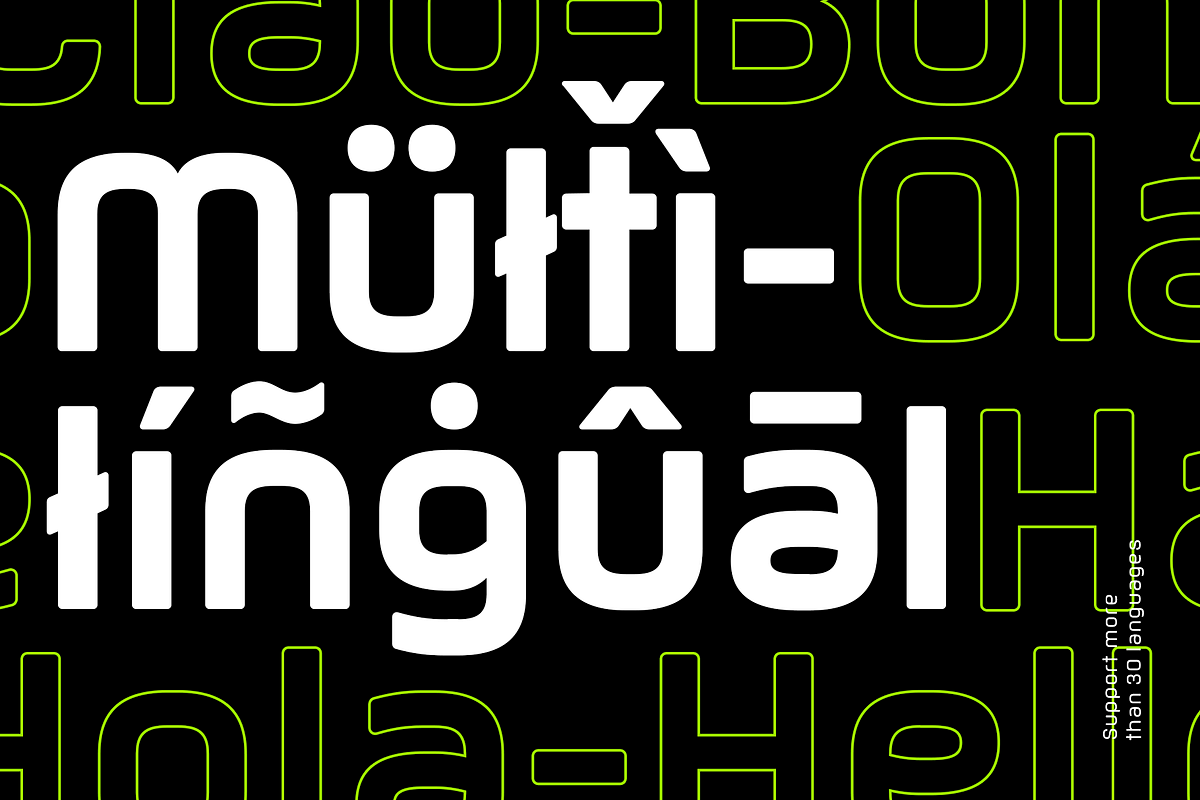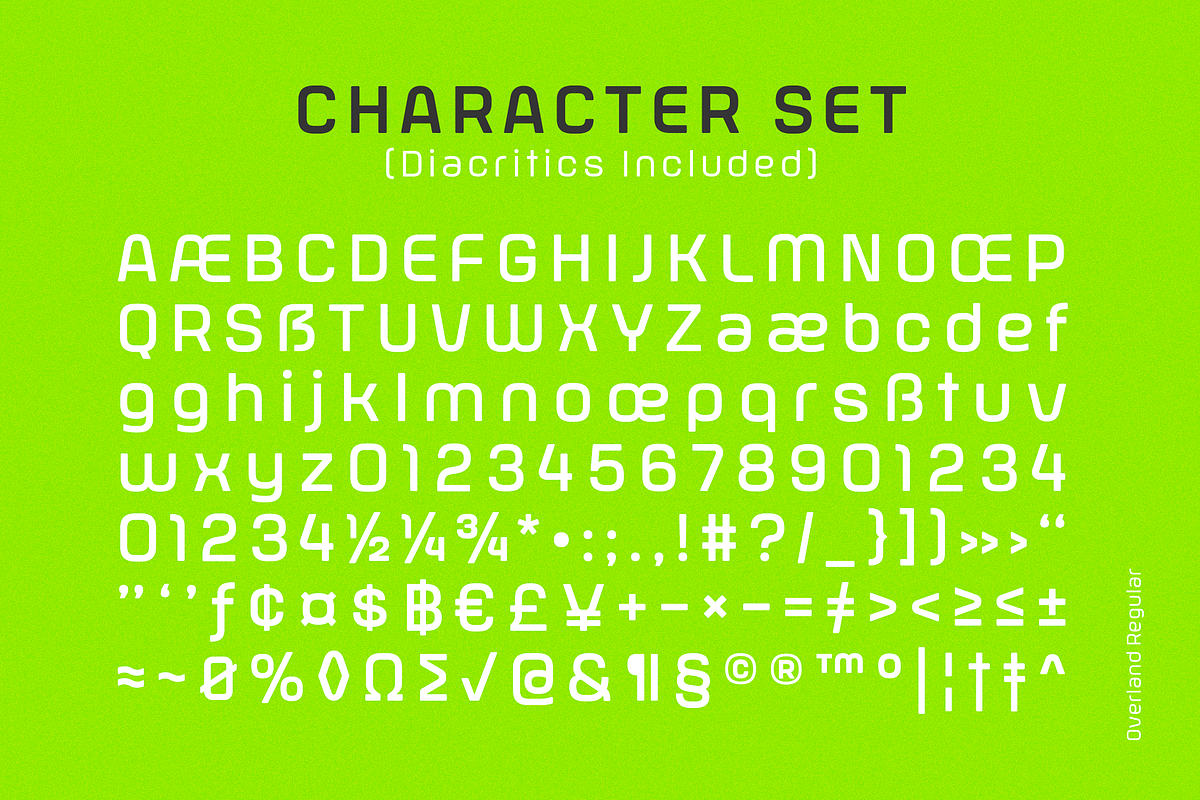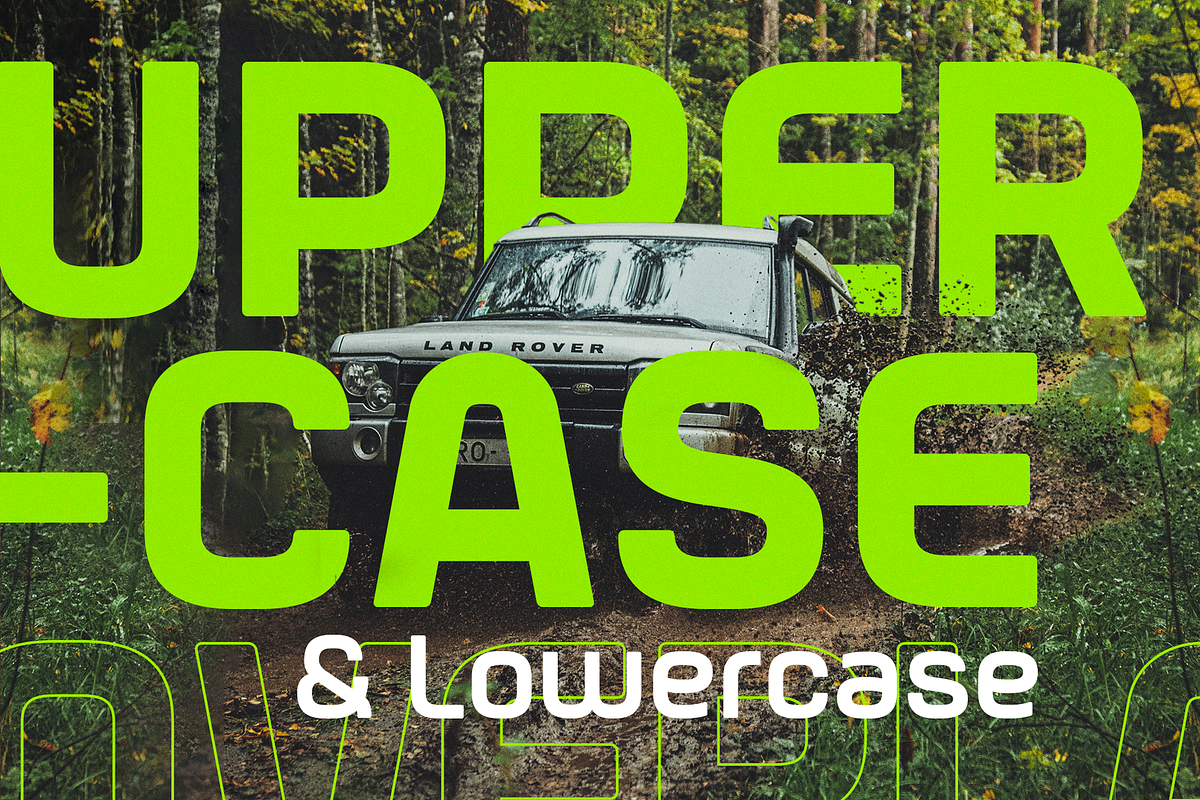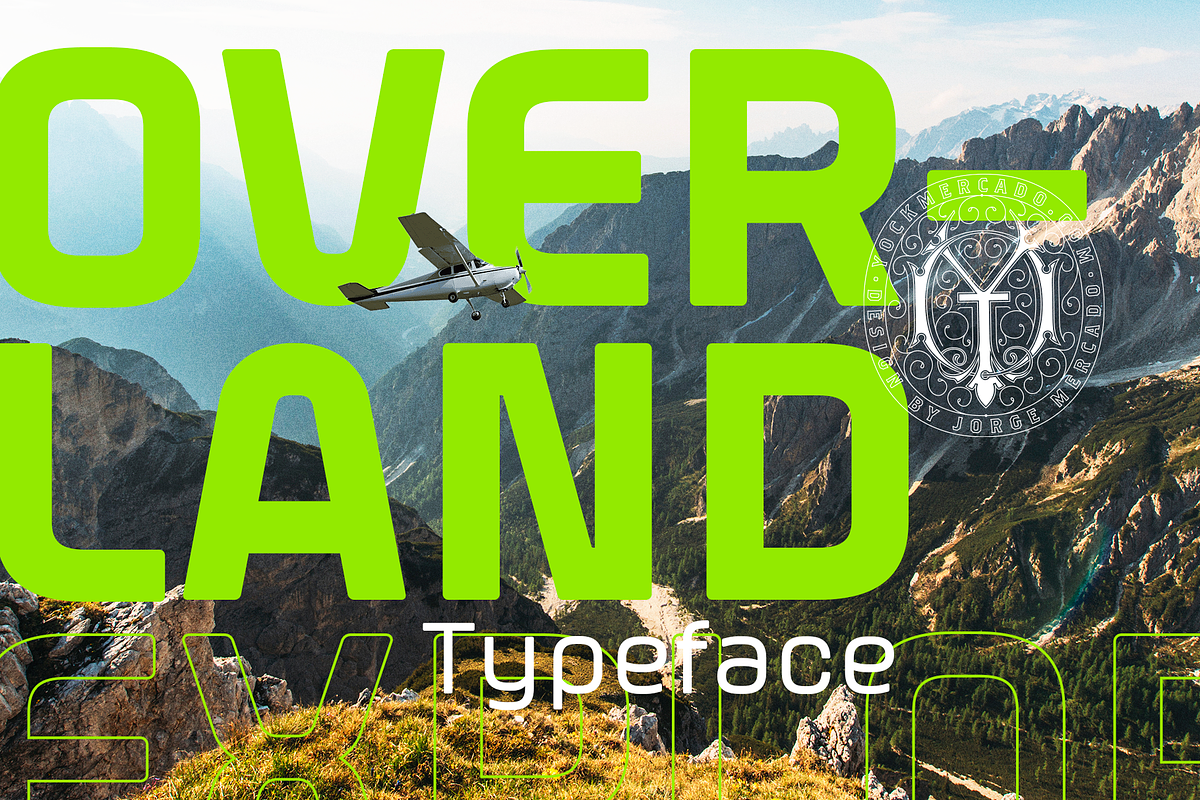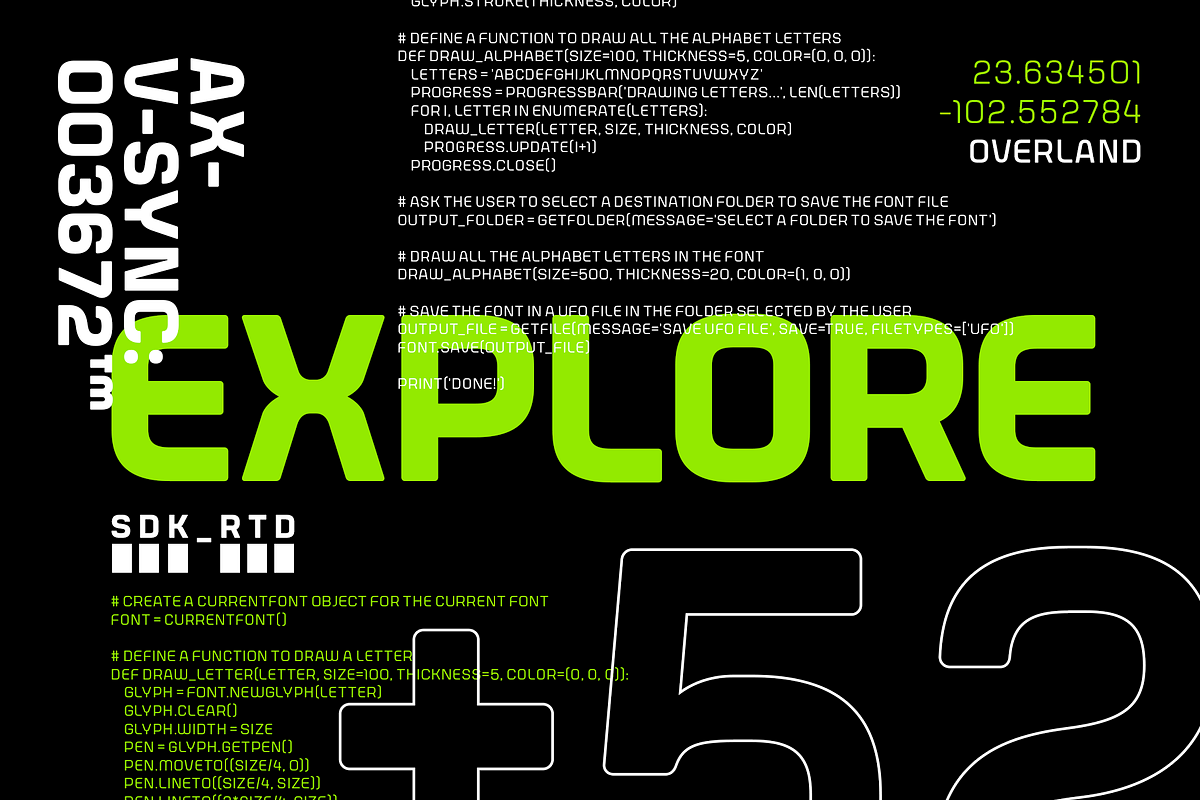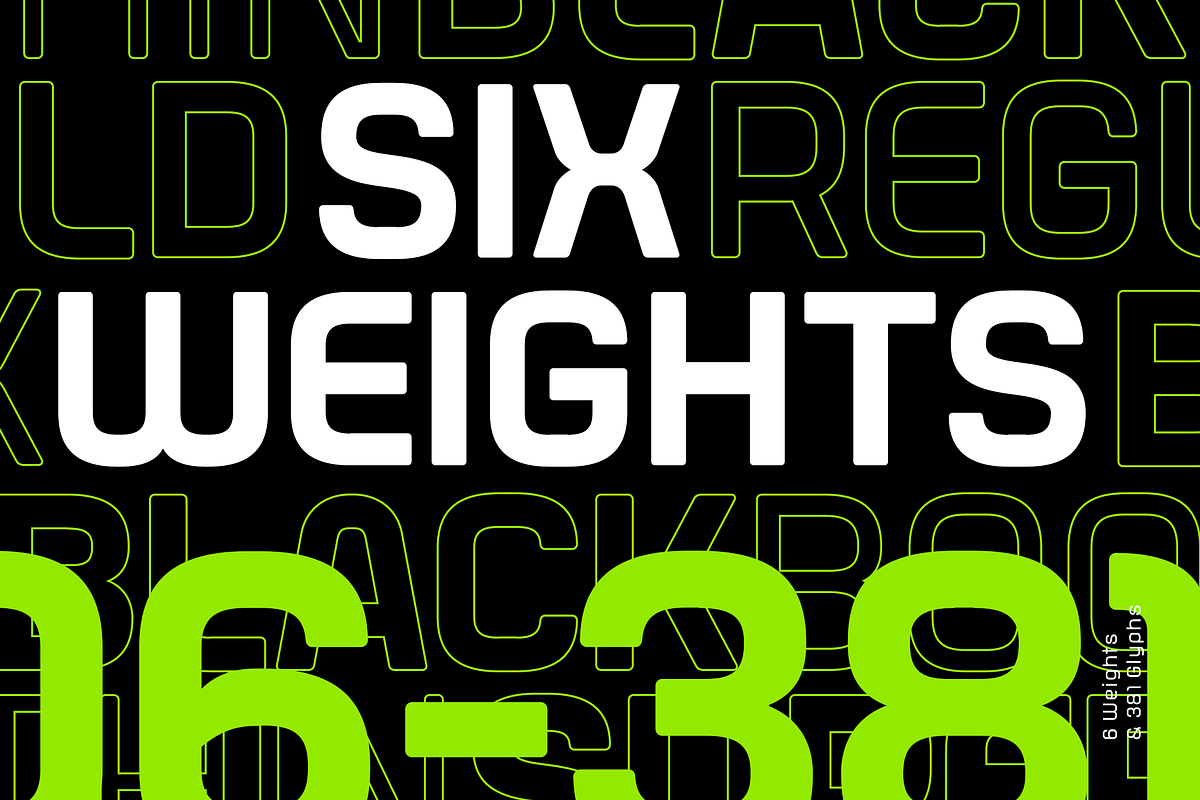
Overland - Modern Sans Serif
Introducing OVERLAND, a modern and minimalist Sans Serif typeface with a touch of daring exploration. With slightly rounded corners, it has a strong and distinctive personality that makes it perfect for branding, editorial design, web, and mobile applications.
OVERLAND is a versatile typeface that adapts to any environment. Its simplicity makes it highly legible, ideal for communicating clear and direct messages. But its imposing presence makes it stand out in any context, making it an ideal font for those looking to create designs with a touch of originality and style.
With six different weights and designed in both uppercase and lowercase, it's a complete typeface family. Its minimalist style is elegant and refined, with its Super and Bold weights ideal for branding or headlines, while its lighter weights allow you to use it for medium or long texts.
OVERLAND is a versatile and stylish choice for any project.